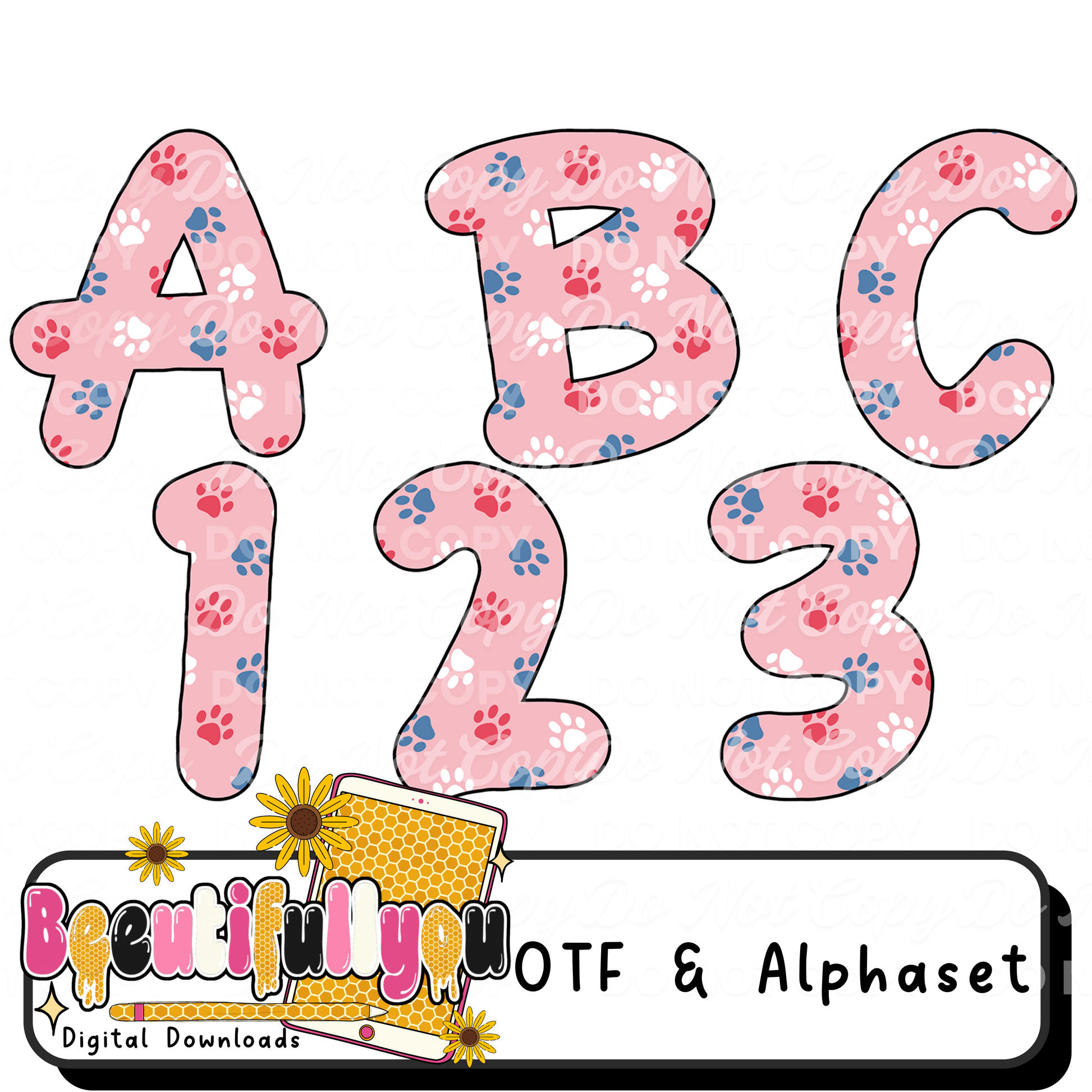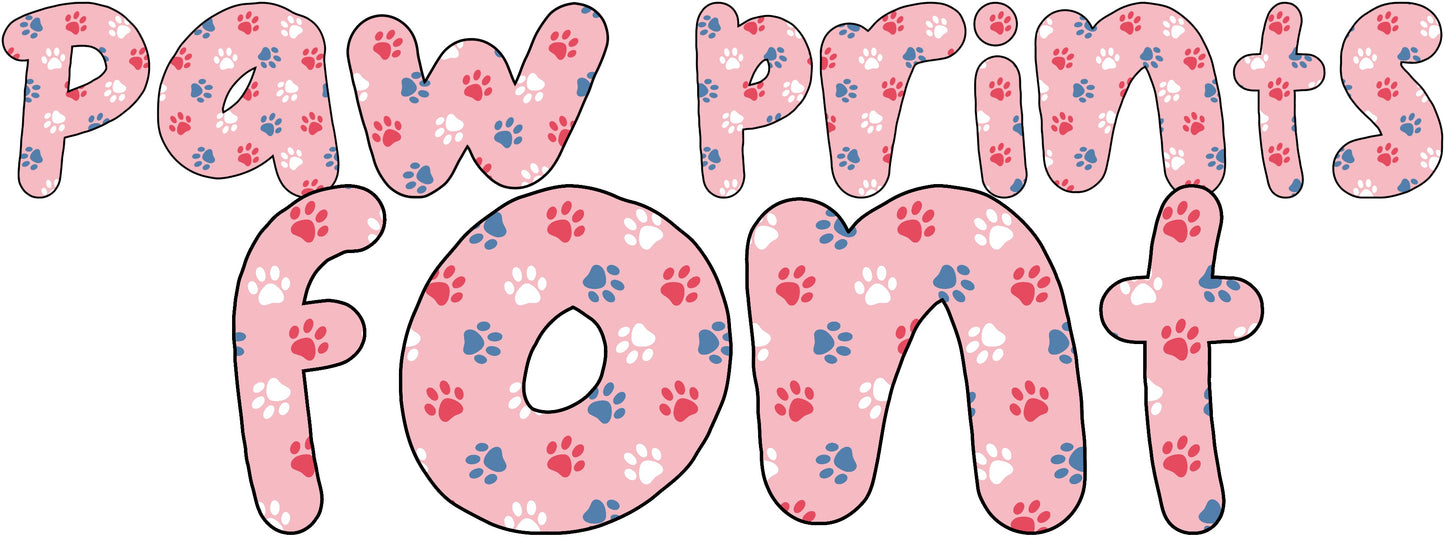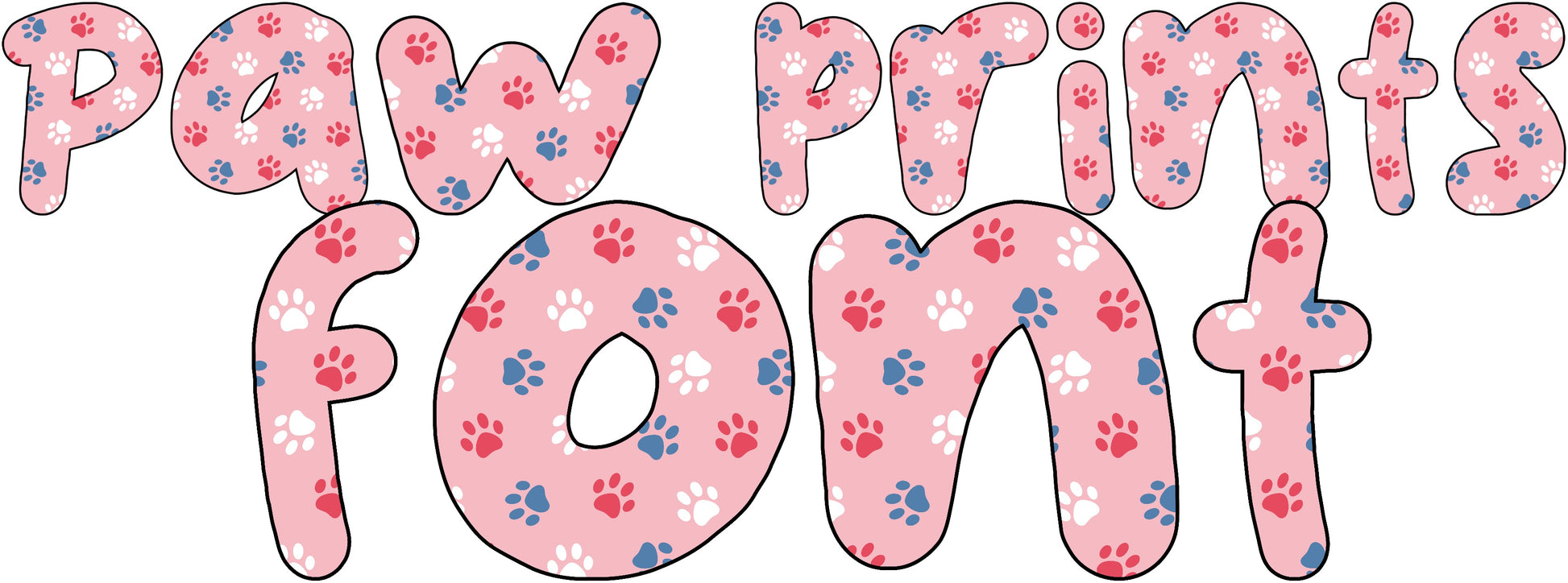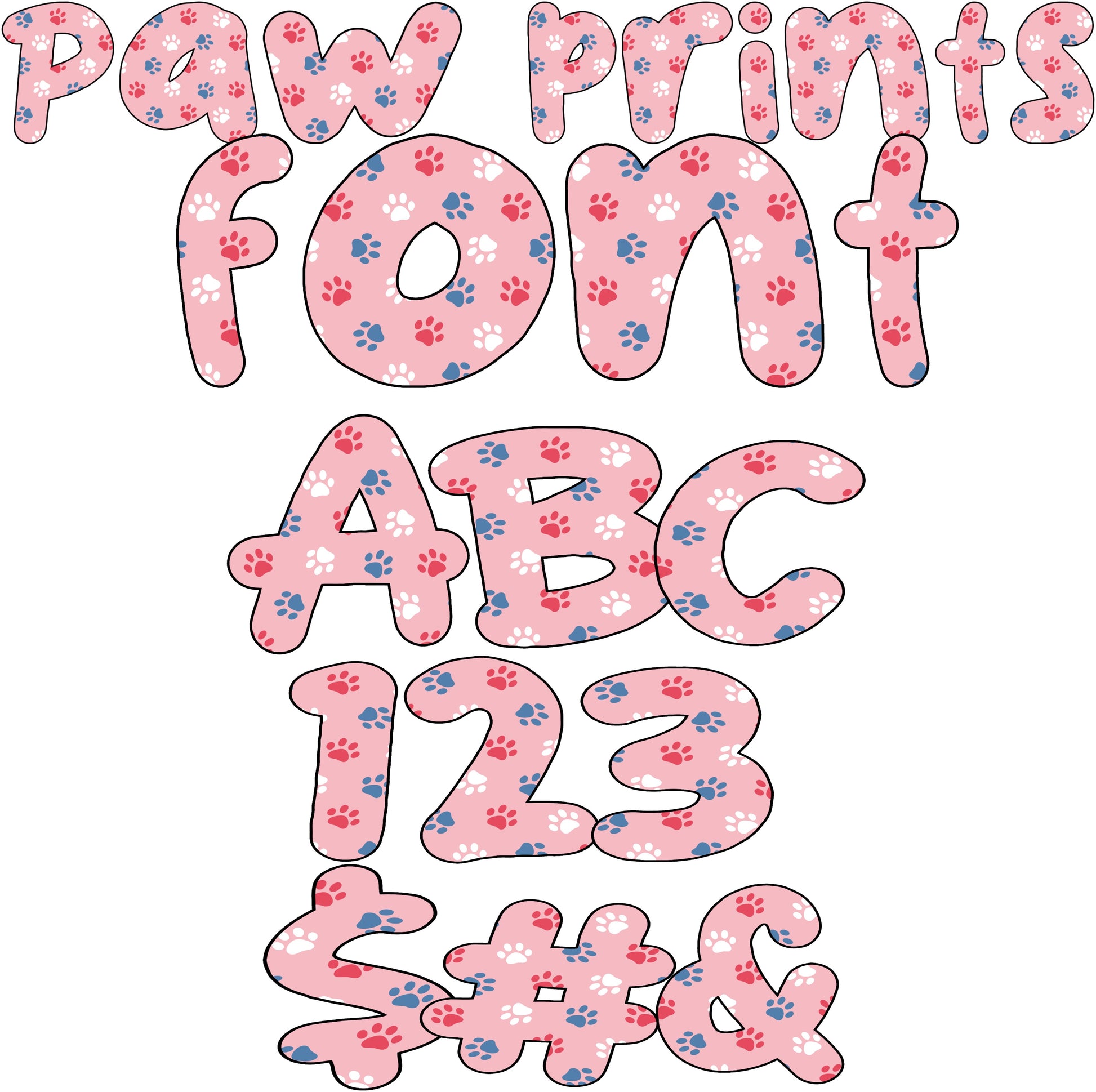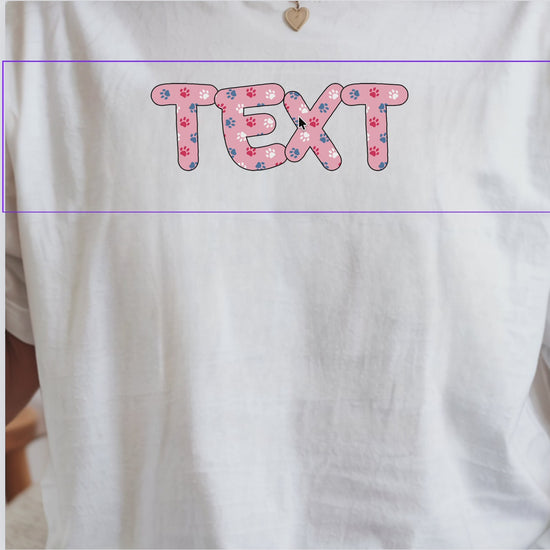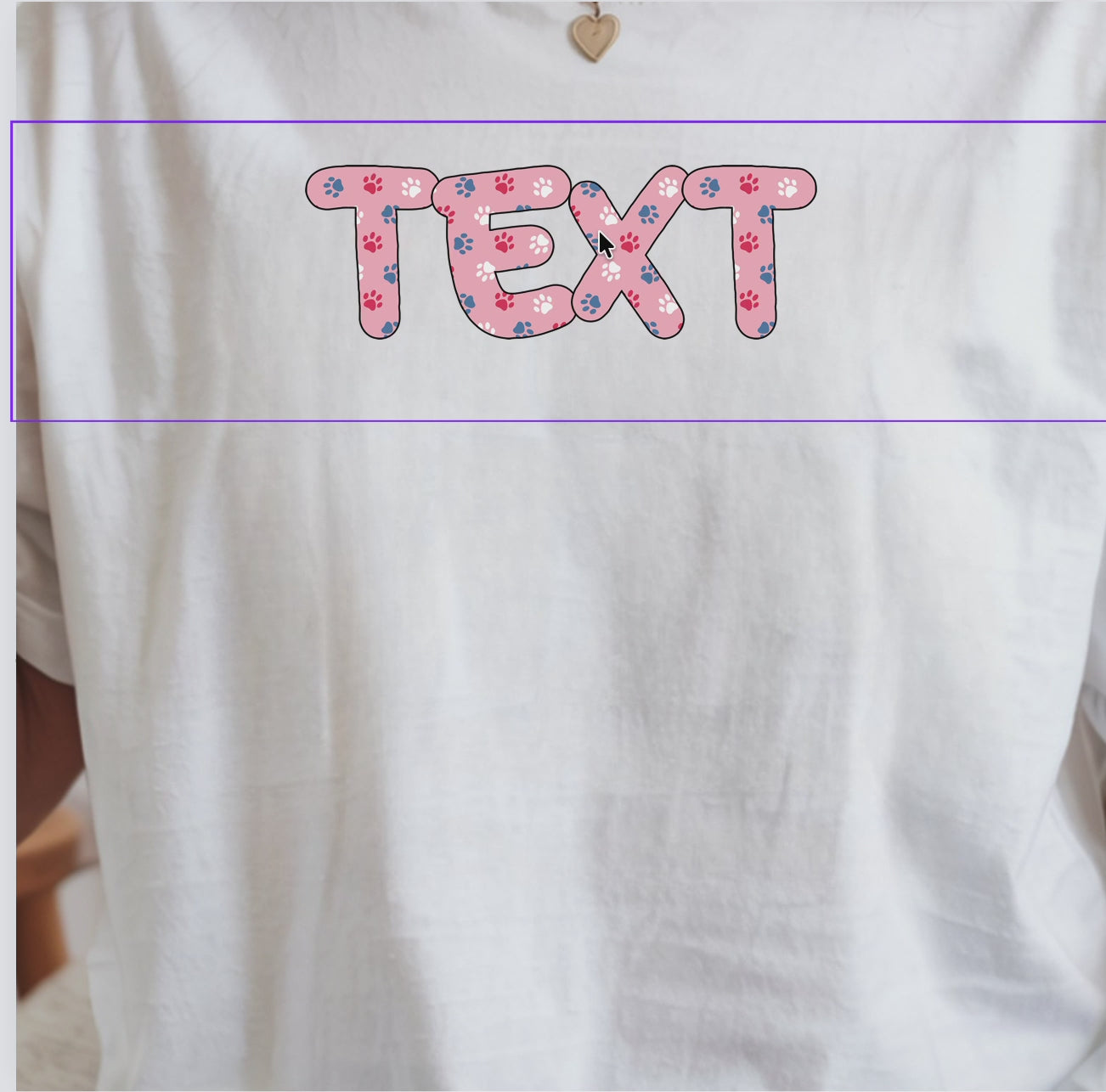
Puppy Love Alpha | Paw Print Alphabet PNG + OTF Font | Cute Dog Letters for Shirts, Kids & Pet Designs
This Puppy Love Alpha features an adorable paw print pattern in soft pink tones â perfect for creating playful, heart-melting designs your customers wonât be able to resist.
đž Design Style
⨠Soft pink base with paw prints
⨠Playful rounded lettering
⨠Cute & trendy boutique aesthetic
⨠Perfect for pet lovers + kids
⢠Colors/design elements are built into the letters